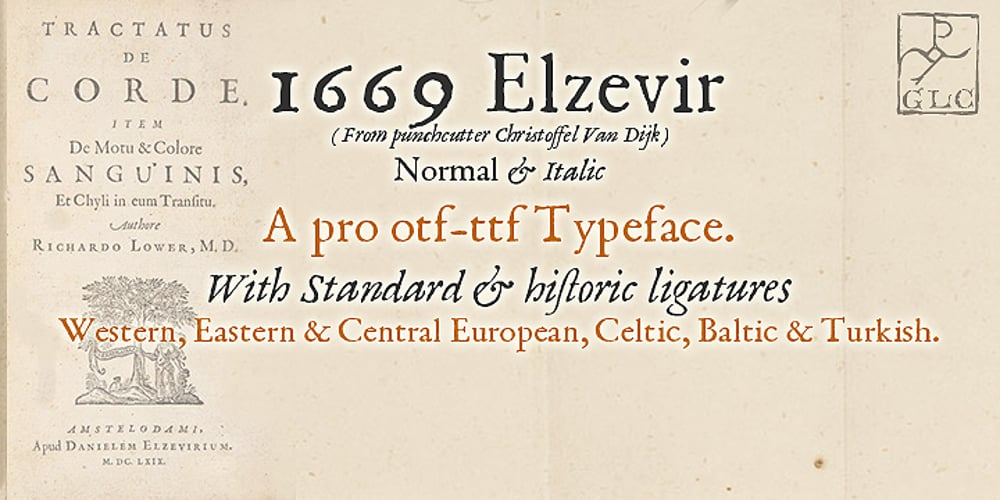
1669 Elzevir Font Family was designed by published by GLC. 1669 Elzevir contains 2 styles and family package options. This family was inspired from the set of font faces used in Amsterdam by Daniel Elzevir to print the famous “Tractatus de corde…” the study on earth anatomy by Richard Lower, in 1669. The punch cutter was the famous Dutch Kristoffel Van Dijk. In our two styles (Normal & Italic), font faces, kernings and spaces are scrupulously the same as in the original. This Pro font covers Western, Eastern and Central European languages (including Celtic), Baltic and Turkish, with standard and “long s” ligatures in each of the two styles. The Roman (Normal) style contains a U stylistic alternate, and the Italique style A.